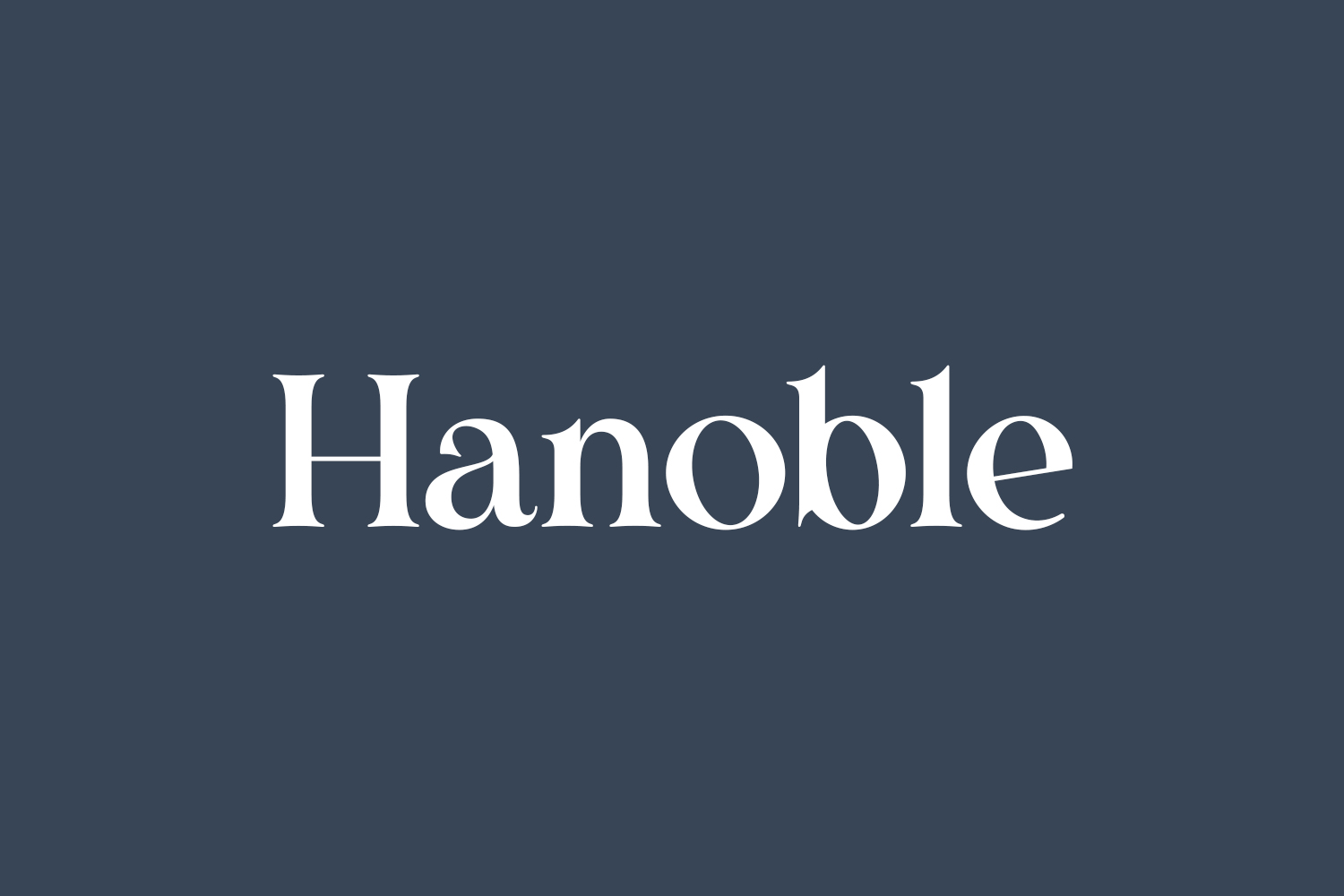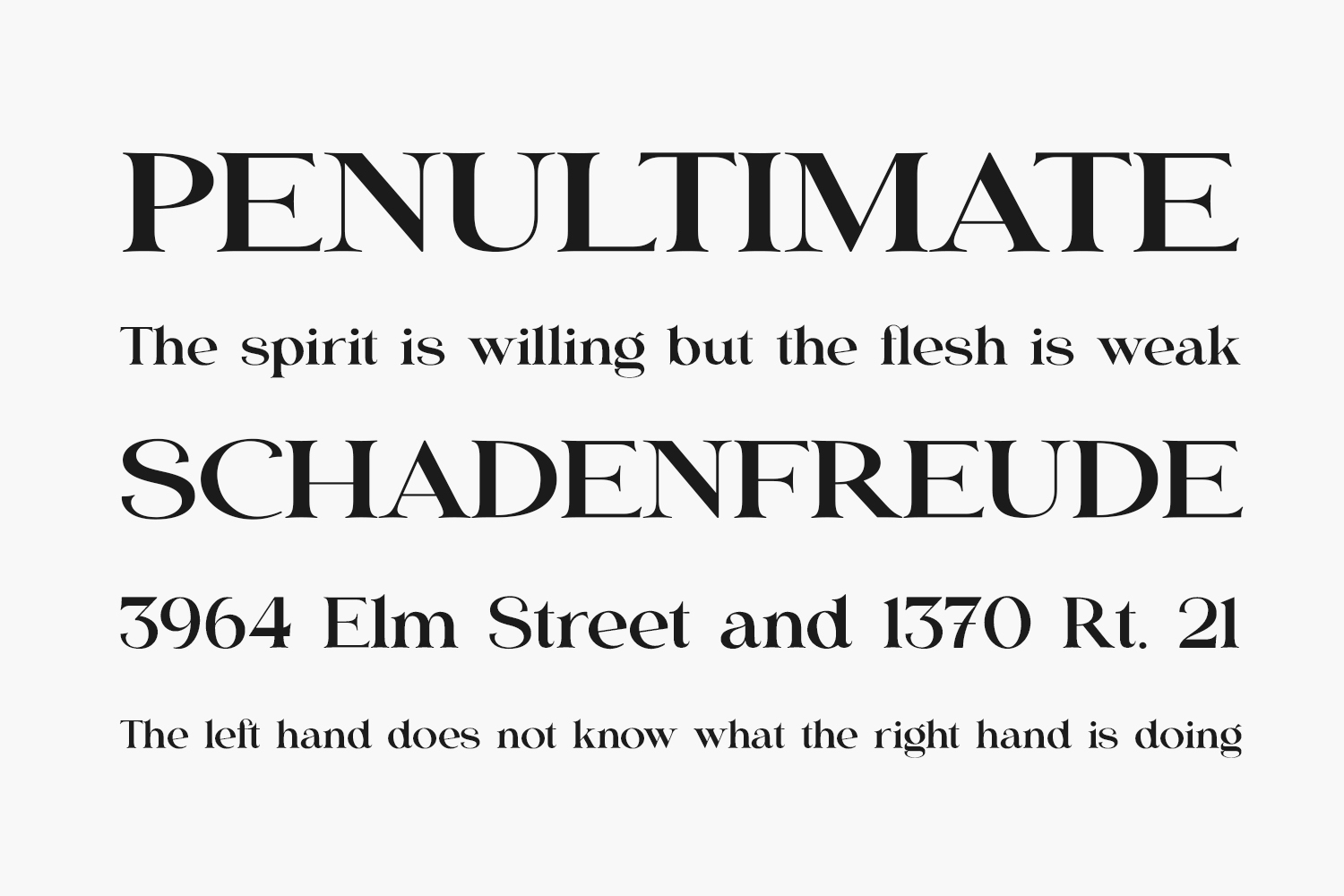
Hanoble Free Font is a stylish and unique serif font. Hanoble Free Font is free for personal use only. Please purchase the full version for commercial use.
Designed by Yuge Afrianto